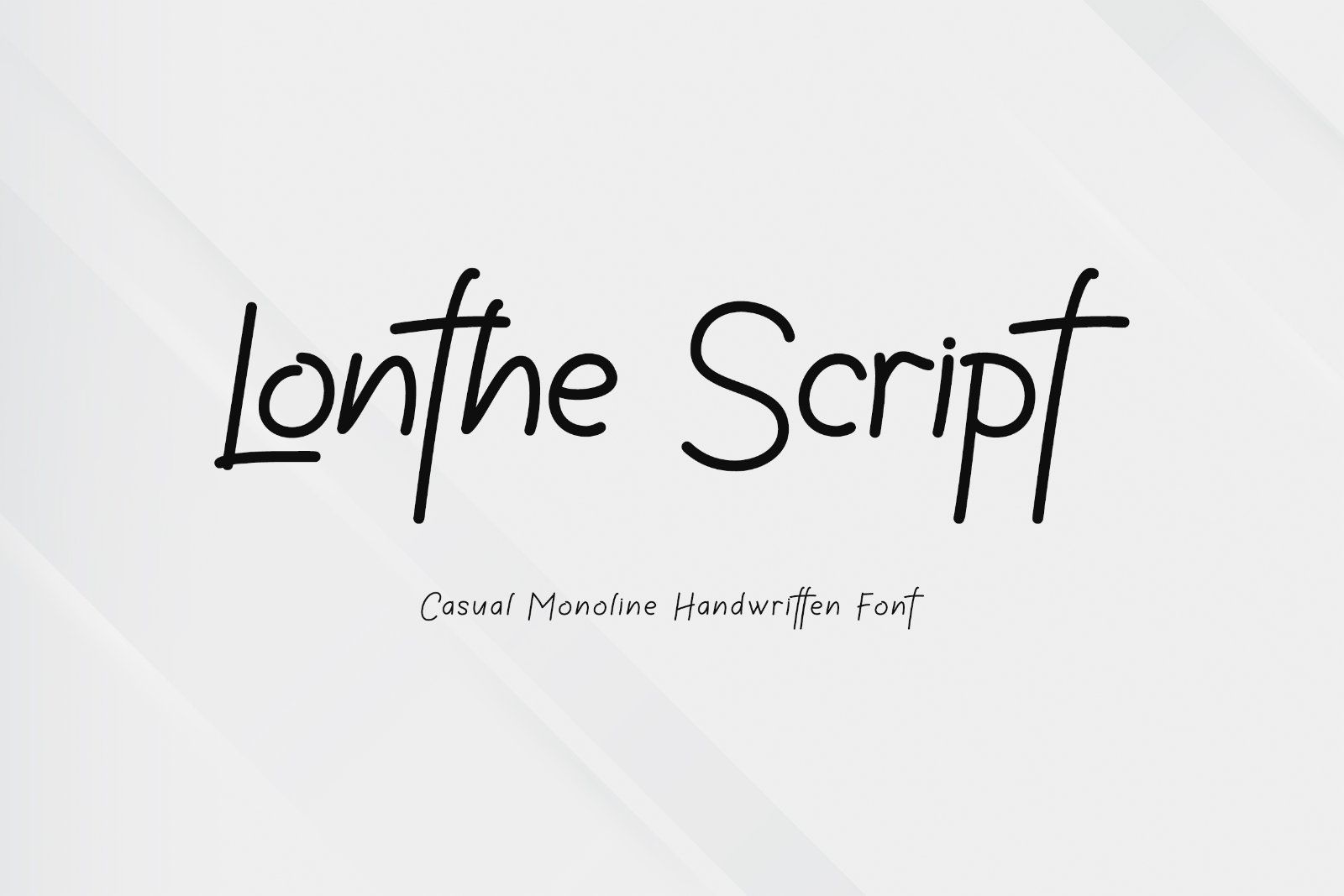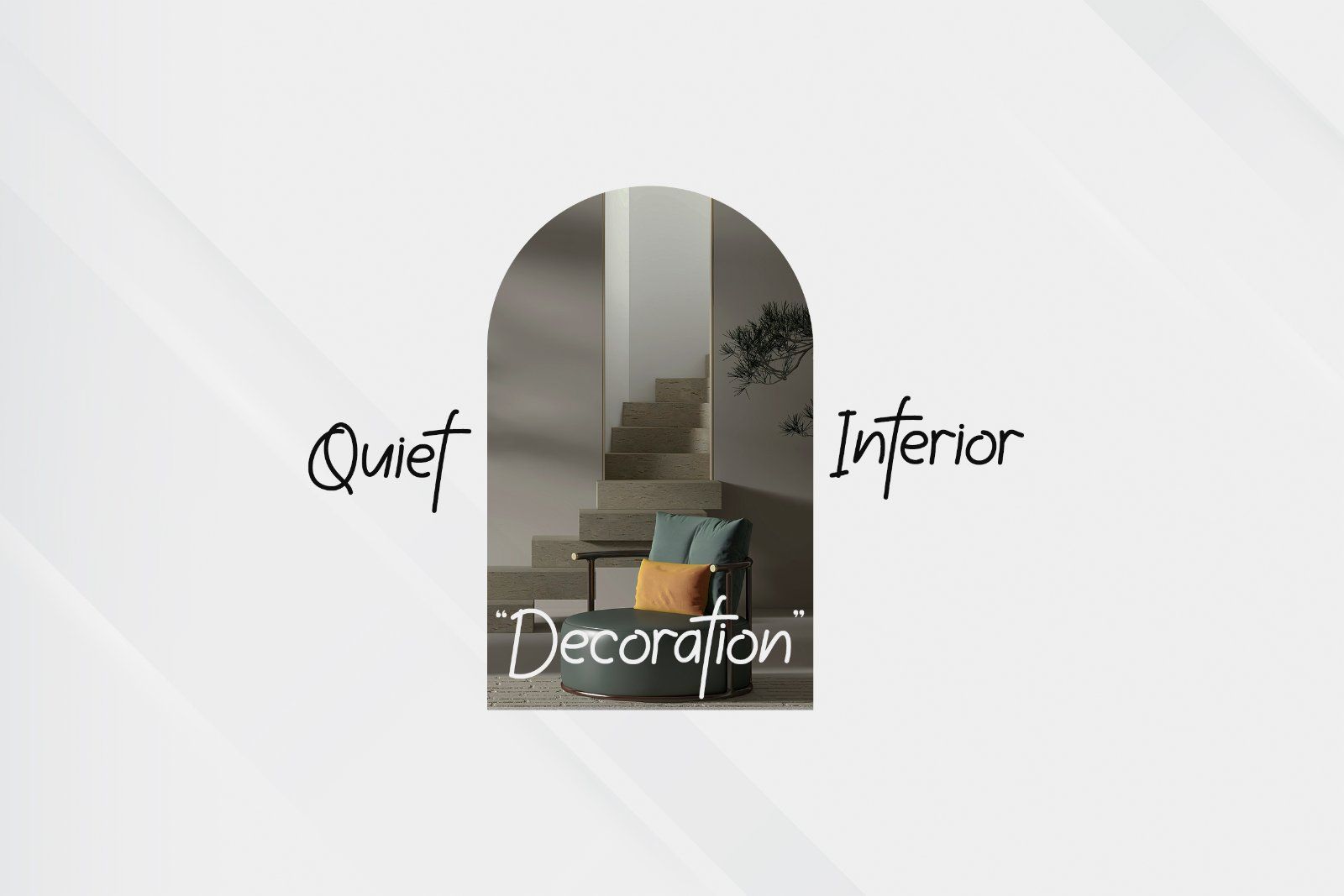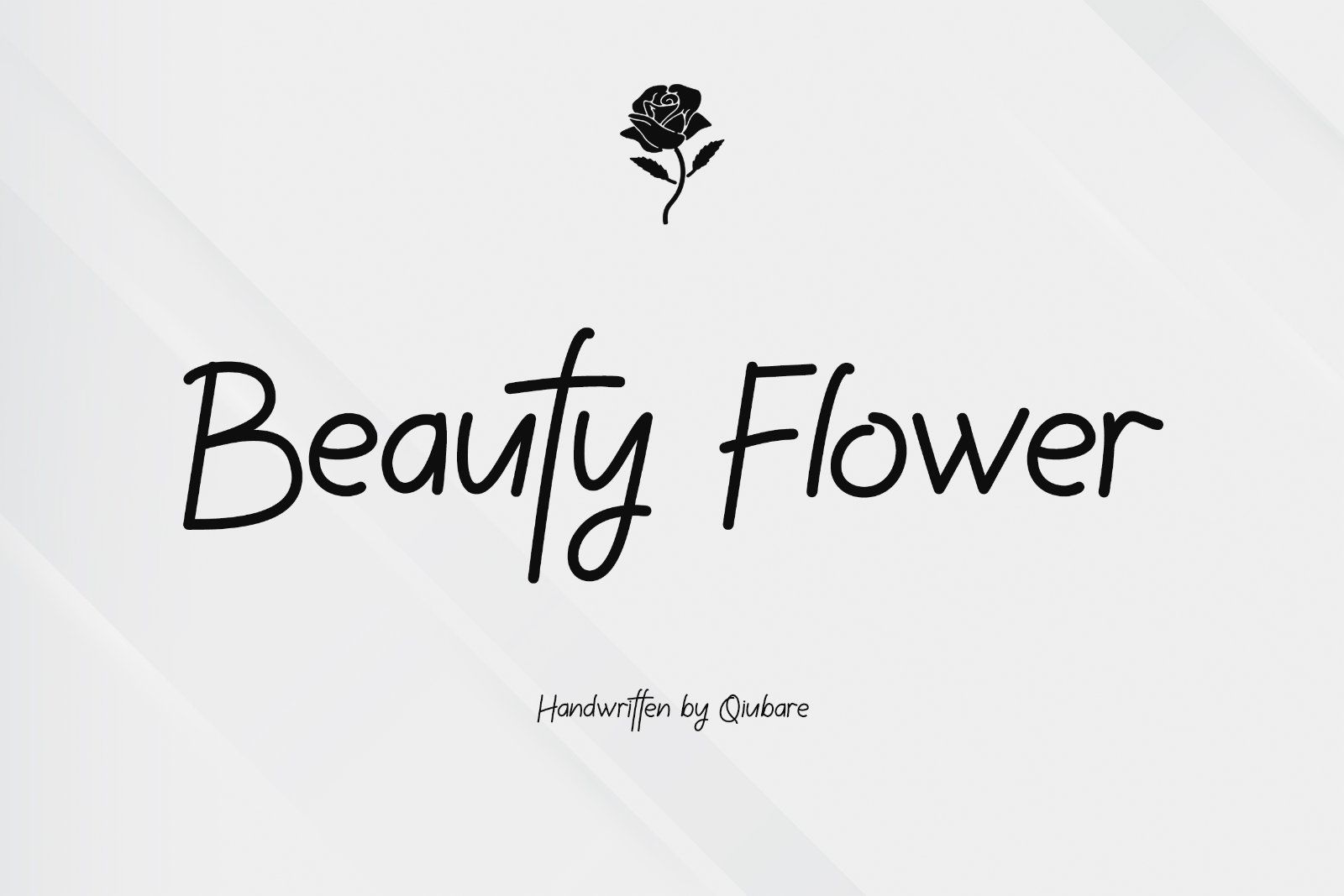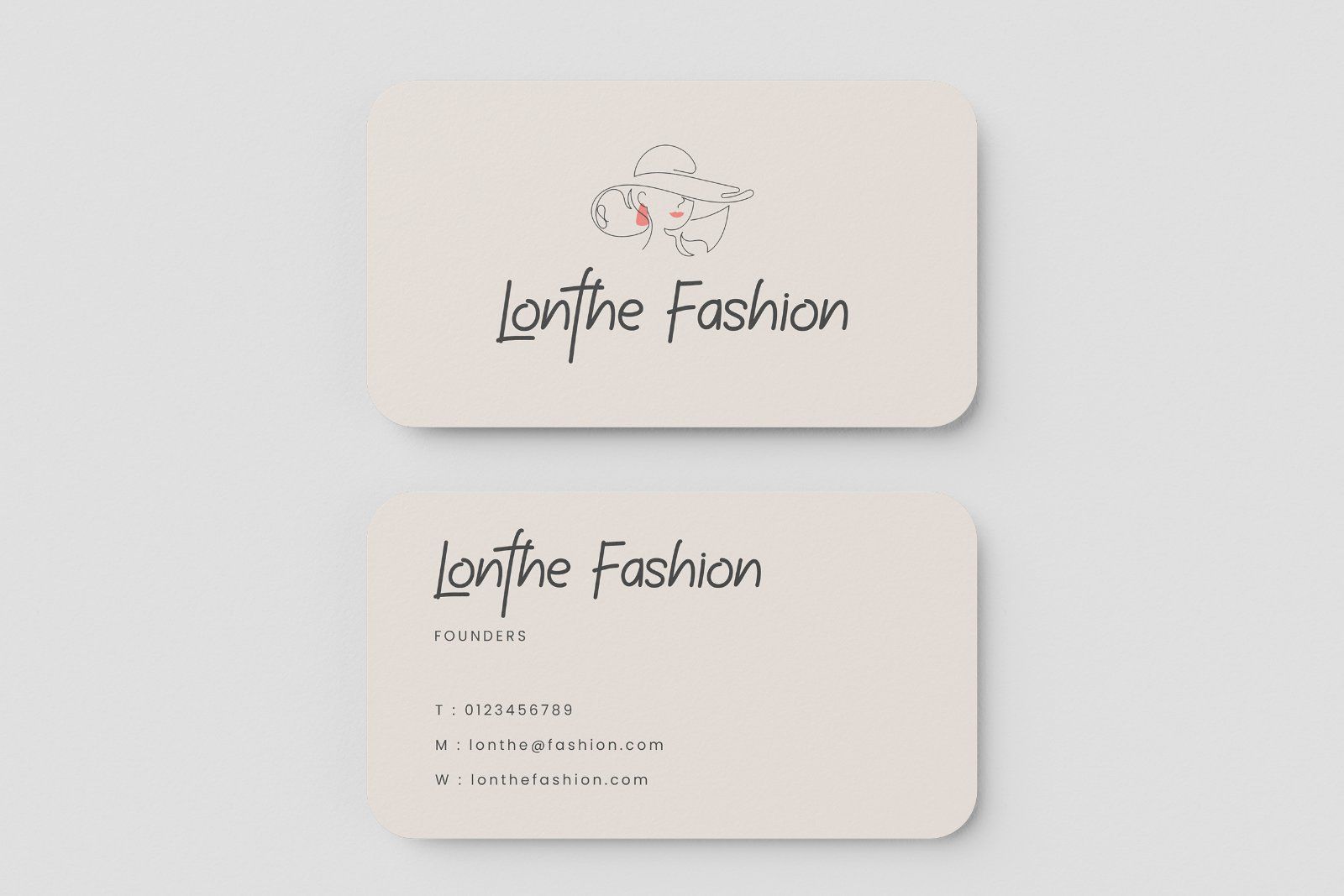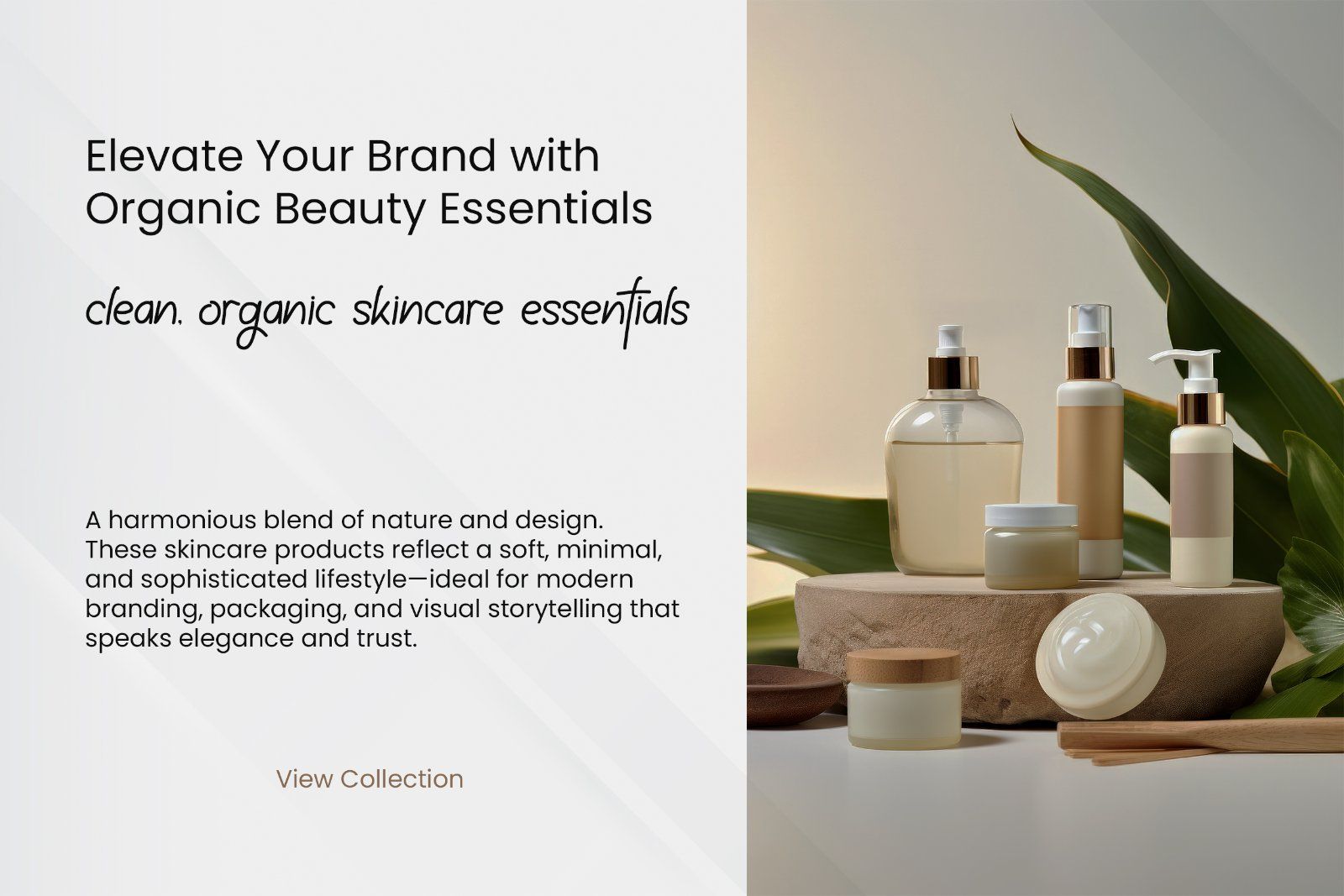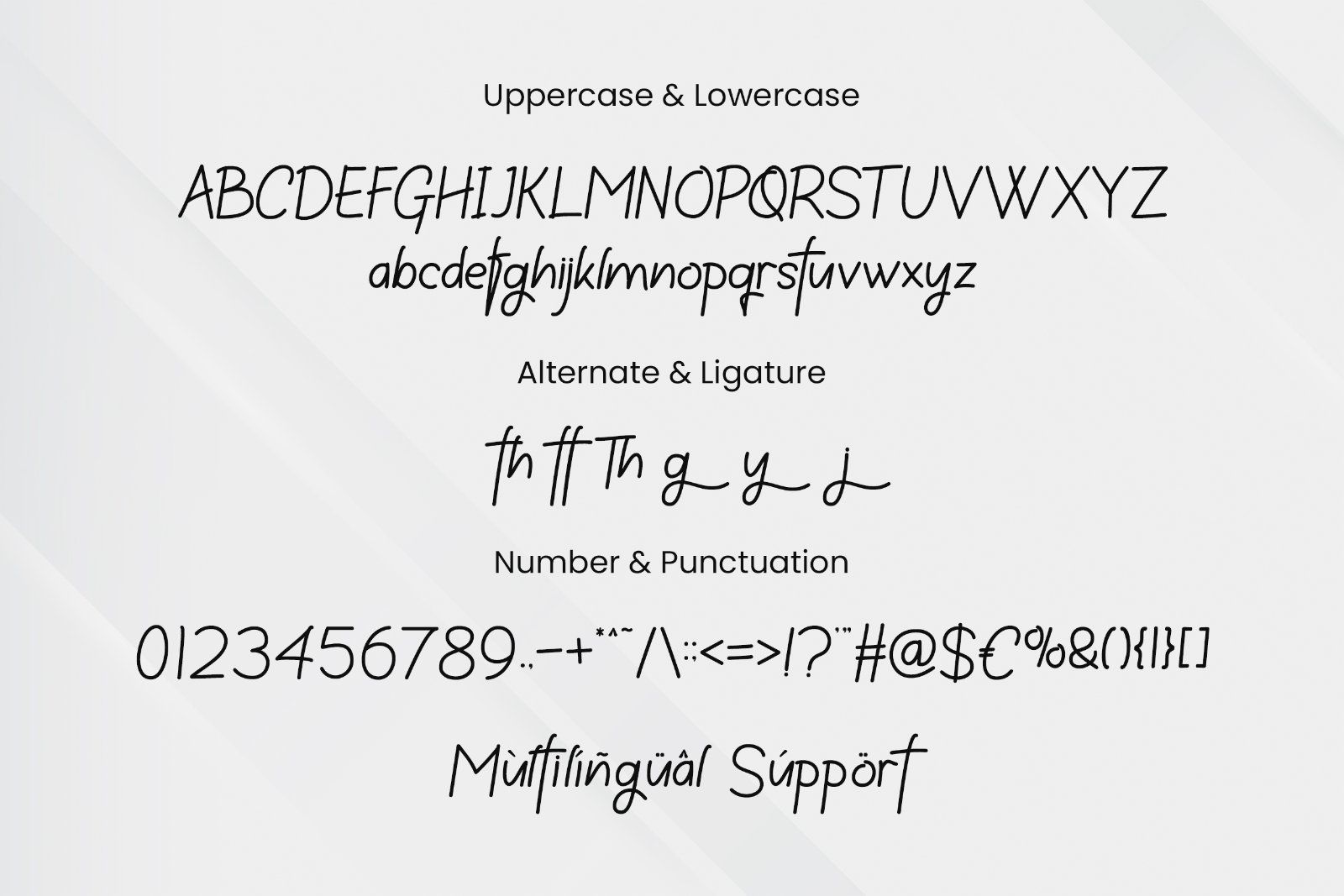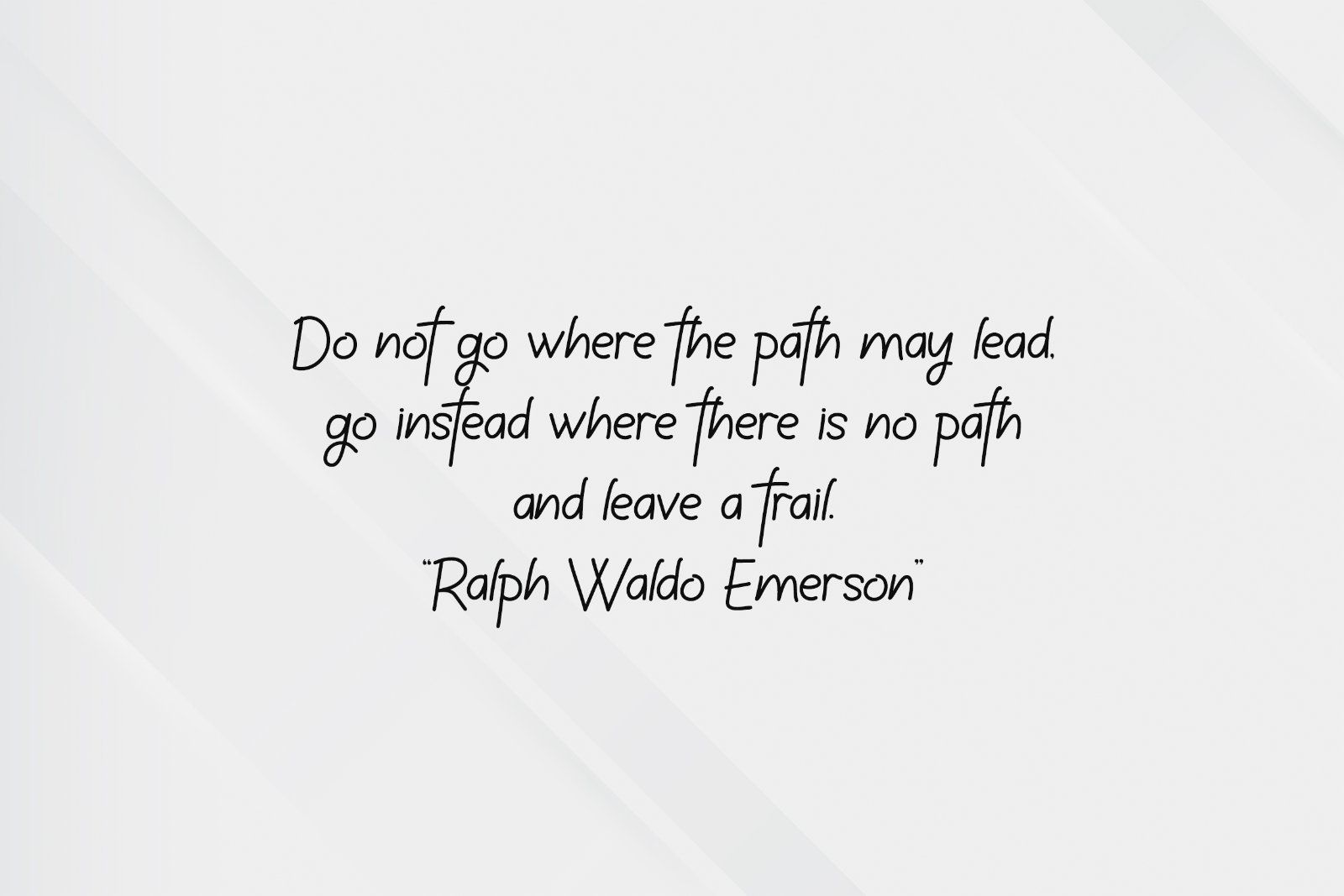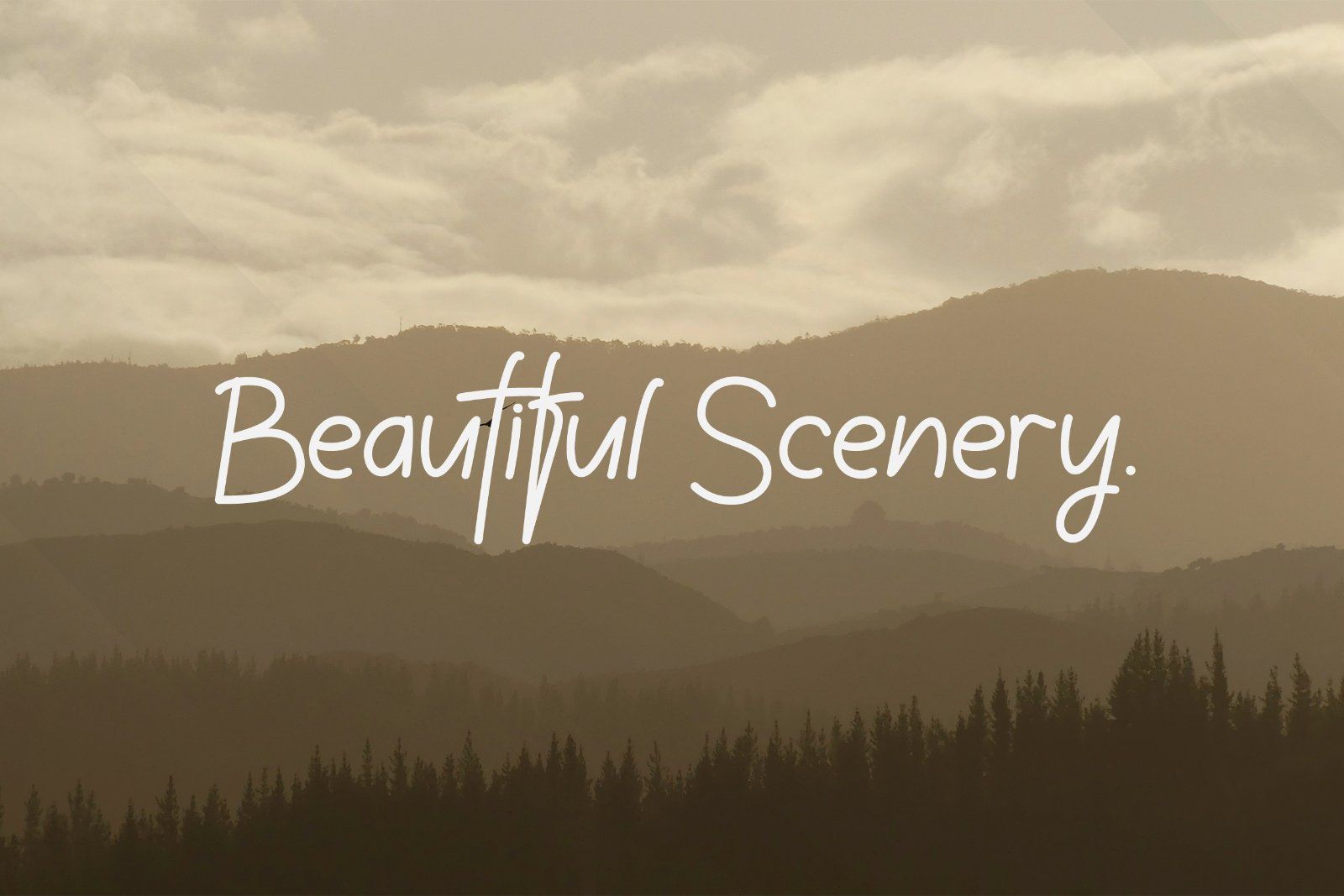
Lonthe is a clean and elegant monoline script font designed to bring a natural handwritten feel into modern branding. With its smooth strokes and balanced flow, this typeface delivers a perfect blend of simplicity and sophistication.
Carefully crafted for designers who seek a minimal yet expressive look, Lonthe works beautifully across a wide range of creative projects—from branding and logo design to social media, packaging, and editorial layouts.
Its casual handwritten style gives a warm and personal touch, while still maintaining a professional and premium aesthetic. Whether you're creating a beauty brand, lifestyle product, or modern identity, Lonthe adapts effortlessly.
✨ Perfect for:
• Logo & branding
• Beauty & skincare products
• Fashion & lifestyle designs
• Social media content
• Packaging & labels
• Quotes & editorial design
✨ Features:
• Uppercase & lowercase
• Smooth monoline strokes
• Stylish ligatures & alternates
Designed to feel natural, stylish, and timeless—Lonthe is your go-to font for creating elegant and modern visual identities.